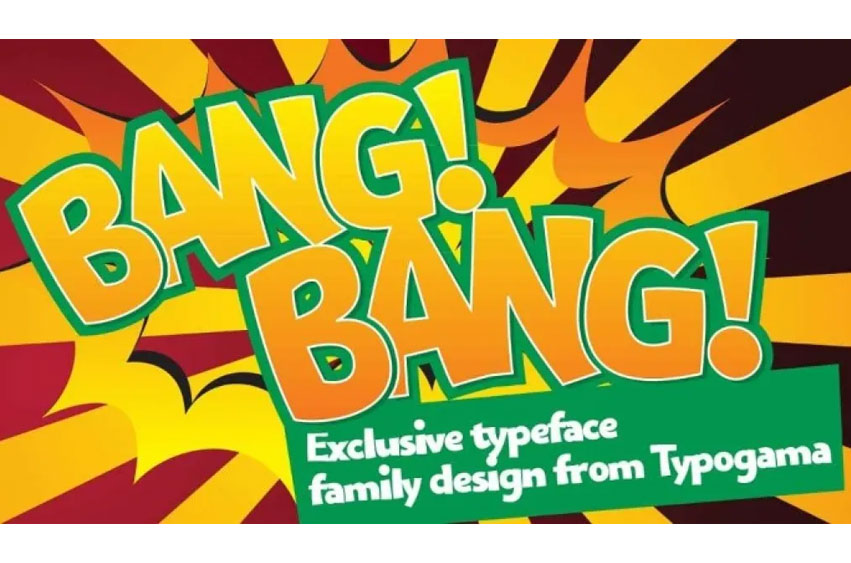
Bangbang Font
Bangbang Font is one of the most seriously comic-type fonts! This family of faces supports multiple languages and Opentype features for your work In comics or design etc.,.
Though the relaxed appearance of this family might suggest something different to you